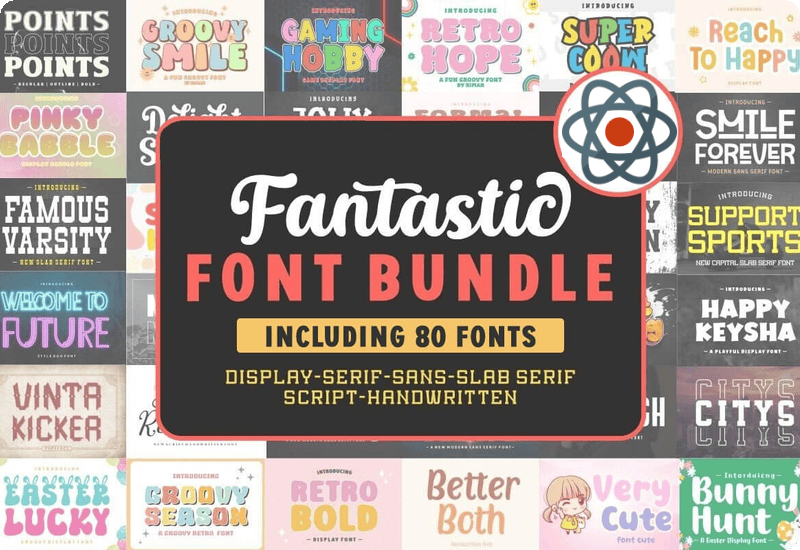
Introduction to the Fantastic Font Bundle
The Fantastic Font Bundle is an incredible collection of 80 premium fonts available for free. Valued at $1179, this bundle is a treasure trove for designers looking to add a touch of uniqueness to their projects. Whether you’re working on branding, web design, print media, or social media graphics, these fonts are versatile enough to fit any design requirement.
What’s Included in the Bundle?
This bundle includes a diverse range of fonts, from script and handwritten to slab serif and display fonts. Premium Fonts included in this bundle:
- Simple Strong Fontes Sans Serif Fonte
- Colored Chalk Display Font
- Bubble Party Display Font
- Points Fontes Slab Serif Fonte
- Simple Berry Display Font
- Pinky Bubble Display Font
- Nosera Serif Font
- Famous Varsity Slab Serif Font
- Smile Forever Sans Serif Font
- Granile Sans Serif Font
- Pattern Vintage Sans Serif Font
- Beautiful Miracle Serif Font
- Magic Notes Script & Handwritten Font
- Formal Display Font
- Awesome Monday Czcionki do Wyświetlania Czcionka
- Wood Carving Display Font
- Sporty Person Slab Serif Font
- Super Coow Display Font
- Notes Diary Script & Handwritten Font
- Bunny Hunt Display Font
- Sance Sans Serif Font
- Any Good Fontes de Exibição Fonte
- Avendes Sans Serif Font
- Delight Satarla Skript-Schriftarten Schriftart
- Bold Stance Sans Serif Font
- Being Together Script & Handwritten Font
- Citys Slab Serif Font
- Bloody Vampire Fuentes Display Fuente
- Street Painting Display-Schriftarten Schriftart
- Summer Suita Script & Handwritten Font
- Happy Keysha Display Font
- Very Cute Script & Handwritten Font
- Hey Gadis Slab Serif Font
- Reach to Happy Display Font
- Retro Bold Display Font
- Support Sports Slab Serif Font
- Luaha Beach Fontes Script Fonte
- Fabagho Display Font
- Groovy Smile Display Font
- Nature Reserve Slab Serif Font
- Jolly Tales Czcionki szeryfowe typu Slab Serif Czcionka
- Spohia Romantic Script & Handwritten Font
- Handmade Shocking Sans Serif Font
- Gaming Hobby Display Font
- Crushed Surface Display Font
- Bold and Smart Display Font
- Groovy Season Display Font
- Night Views Sans Serif Font
- Retro Hope Display Font
- Delicious Mango Script & Handwritten Font
- Marsin Sans Serif Font
- Strong Amanda Script & Handwritten Font
- Smile Tomorrow Script & Handwritten Font
- Peace on Earth Script & Handwritten Font
- Hello Carli Display Font
- New Dream Script & Handwritten Font
- Campaigh Sans Serif Font
- Better Both Script & Handwritten Font
- Laurel Story Script & Handwritten Font
- Funky Fun Serif Font
- Bread Cookie Decorative Font
- Simple Playful Script & Handwritten Font
- Happy Vibes Display Font
- Nafoda Sans Serif Font
- Wonderful Father Script & Handwritten Font
- Saydis Script & Handwritten Font
- Vinta Kicker Blackletter Font
- Xoya Slab Serif Font
- Welcome to Future Font Display Font
- August Drama Script & Handwritten Font
- Smart Hopes Display Font
- Majonu Sans Serif Font
- Beauty Lavany Serif Font
- Supported Display Font
- Simple Angela Script & Handwritten Font
- Easter Lucky Font Display Font
- Smart Claudy Display Font
- Getting Hope Slab Serif Font
- Romantic Julistin Script & Handwritten Font
- Ageth Script & Handwritten Font
These fonts cover various styles, ensuring you have the perfect typeface for any project.
The Versatility of Premium Fonts
These premium fonts are designed to be versatile and adaptable. Whether you need a playful script for a children’s book cover or a bold display font for a marketing campaign, this bundle has you covered.
Enhancing Branding with the Right Fonts
The right font can make a significant difference in branding. Fonts like Nosera Serif Font and Beautiful Miracle Serif Font can add a touch of elegance and professionalism to your brand’s visual identity.
Fonts for Web Design
Web designers will find fonts like Smile Forever Sans Serif Font and Granile Sans Serif Font particularly useful. These fonts ensure readability on digital screens and enhance the overall user experience on websites.
Fonts for Print Design
Print designers can benefit from the diverse range of fonts included in this bundle. Fonts like Pattern Vintage Sans Serif Font and Bread Cookie Decorative Font are perfect for creating striking print materials that stand out.
User-Friendly Script & Handwritten Fonts
Script and handwritten fonts such as Magic Notes Script & Handwritten Font and Summer Suita Script & Handwritten Font add a personal touch to your designs, making them feel more intimate and engaging.